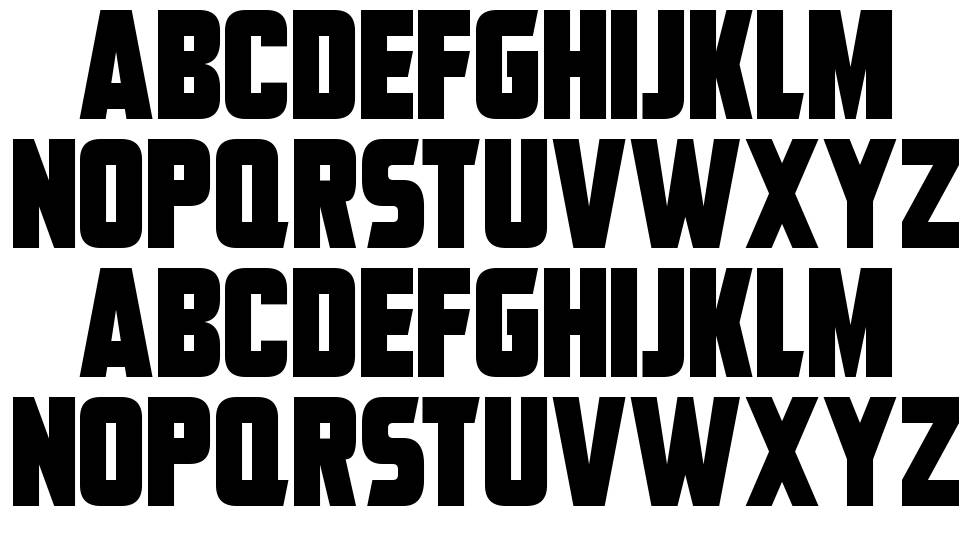
The Future Font - The future is a homage to futura, paul renner’s progressive classic.
The future is a homage to futura, paul renner’s progressive classic.